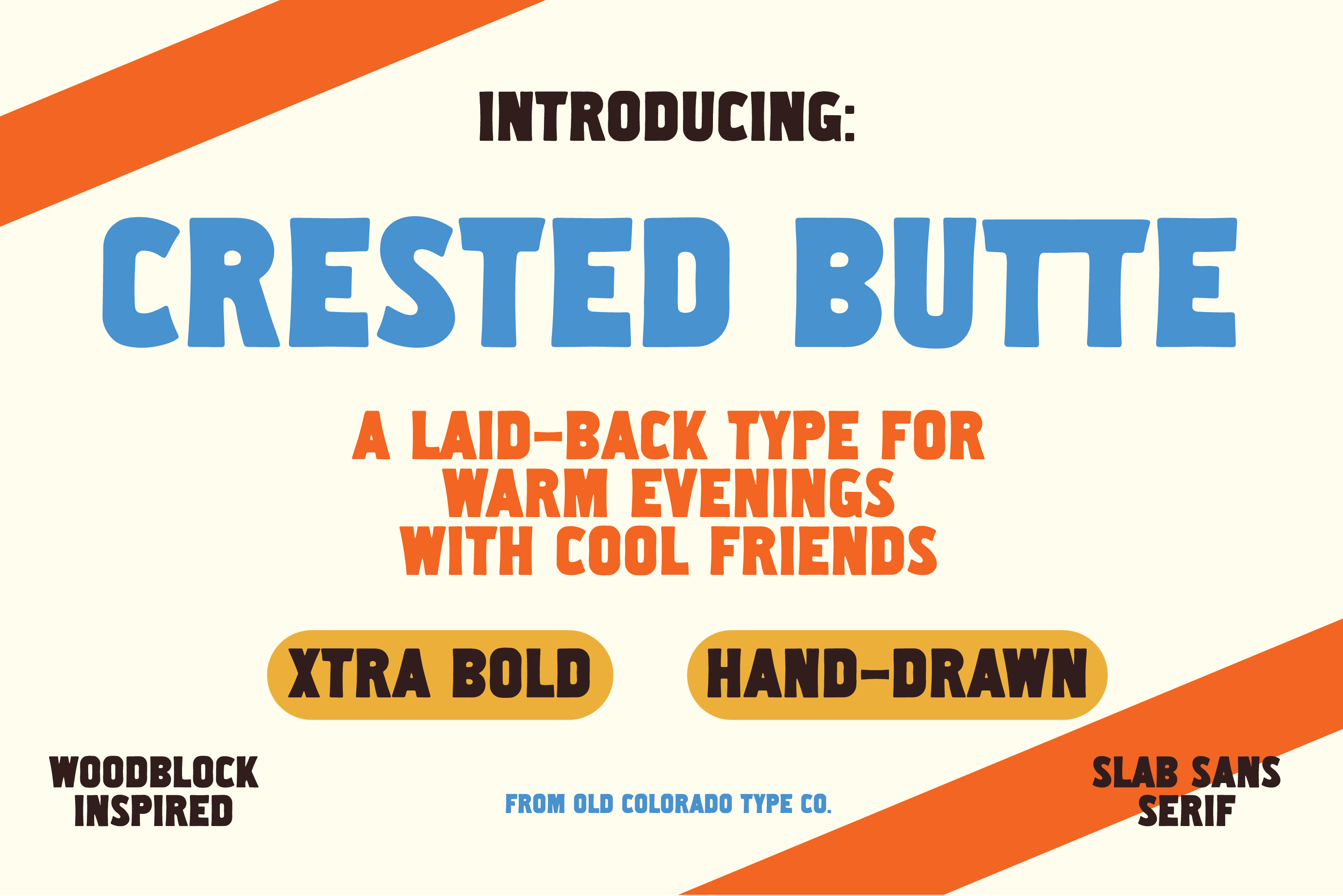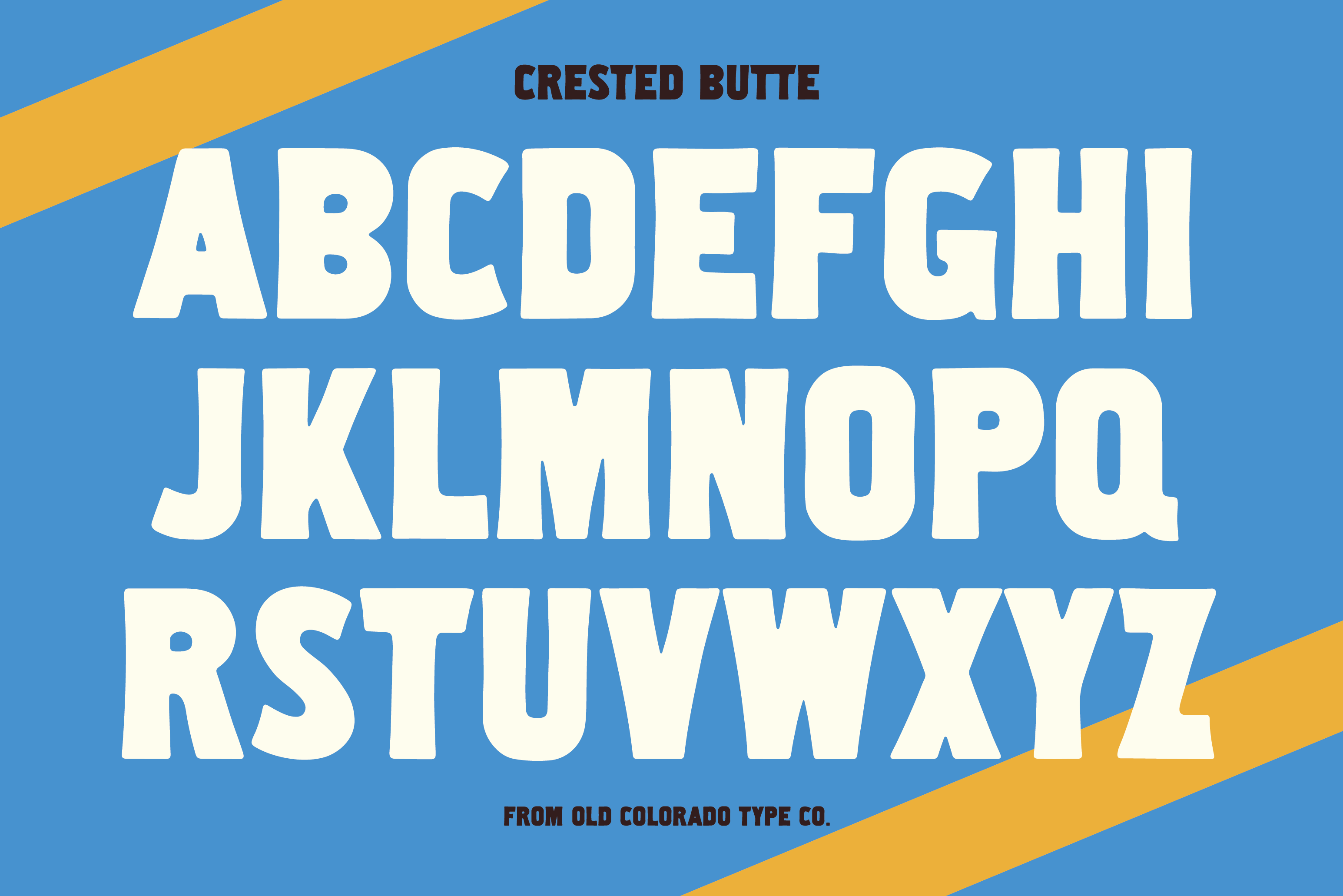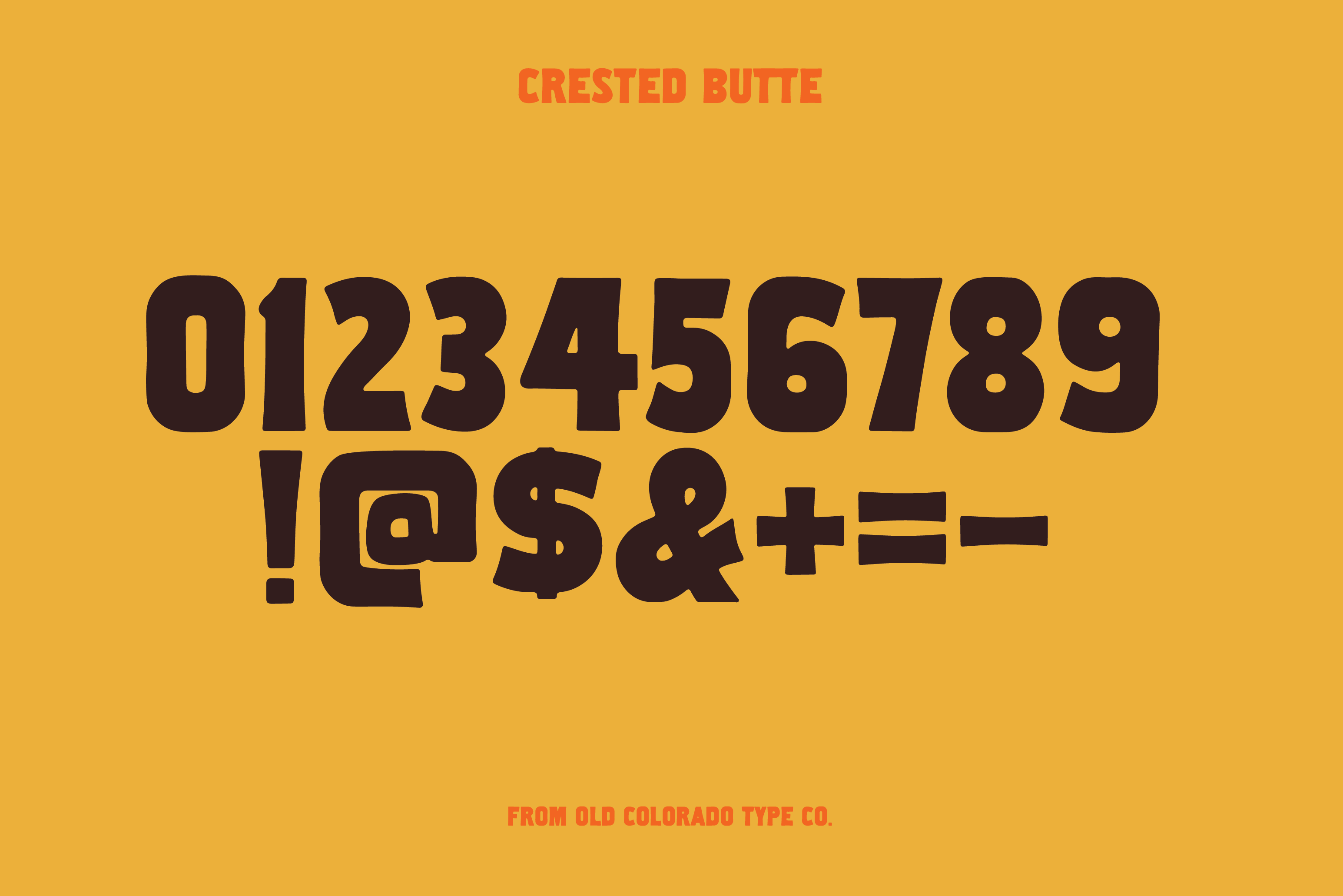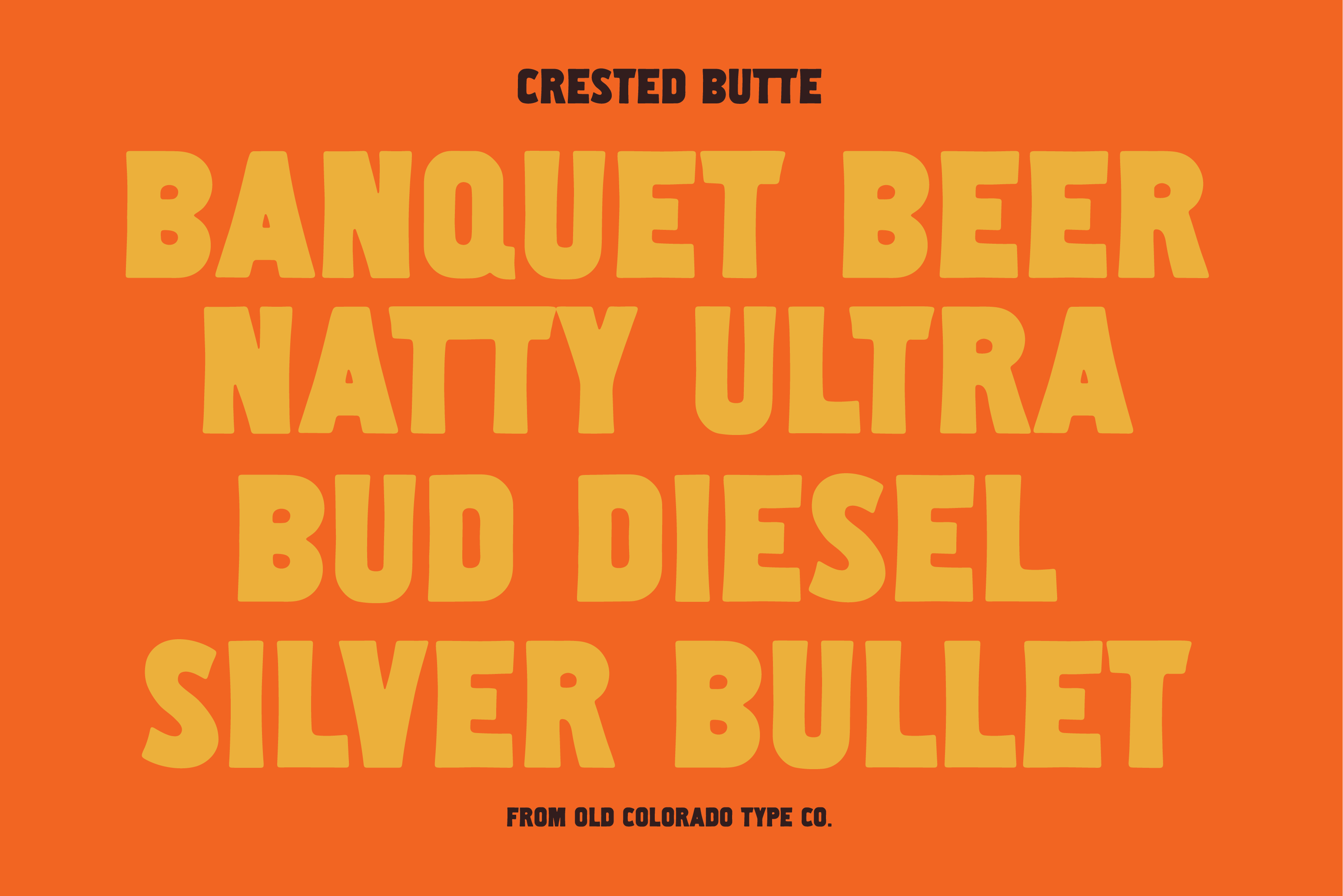
Crested Butte Typeface
Subtle curves make this chunky type a hearty enough for the hungriest designer. Old Colorado Type Co. is the moniker for my side quest as a type designer :)